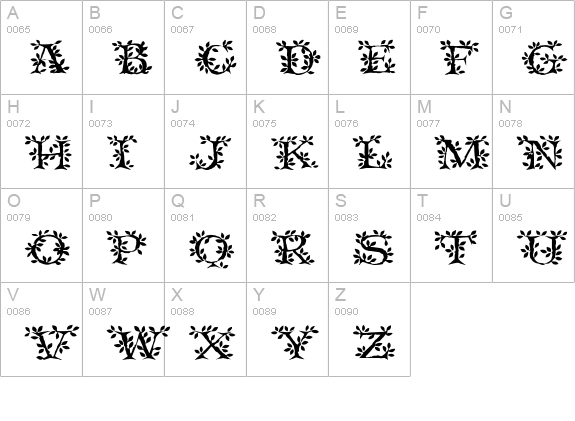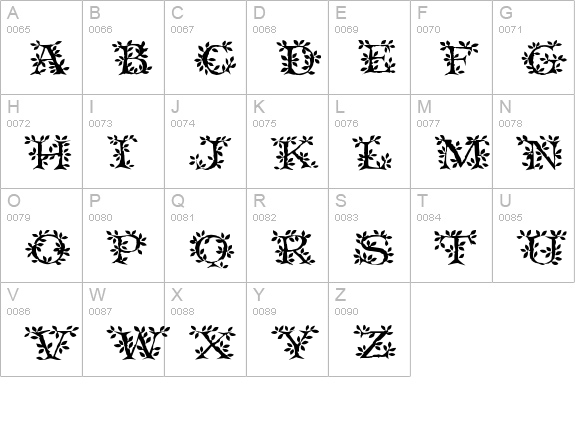
TenderleafCaps Font Details
TenderleafCaps is a stunning and elegant font that exudes sophistication and charm. With its delicate serifs and smooth curves, this typeface is perfect for adding a touch of class to any design project. Whether you are creating invitations, logos, or branding materials, TenderleafCaps will elevate your work to new heights. What makes TenderleafCaps even more appealing is that it is free. Yes, you read that right! This beautiful font is freely available to download at FontsMarket.com. You no longer have to break the bank to access high-quality typography. Simply head over to FontsMarket.com and unleash your creativity with TenderleafCaps. This font boasts a wide range of uppercase characters, allowing you to create eye-catching headlines and titles. Its clean and refined design ensures legibility, making it suitable for both print and digital applications. The versatility of TenderleafCaps is truly remarkable, as it seamlessly blends with various design styles, from vintage to modern. Additionally, the attention to detail in TenderleafCaps is impeccable. The smooth contours and well-balanced proportions make it a joy to work with. Each character is meticulously crafted, ensuring a harmonious and visually pleasing composition. So why wait? Download TenderleafCaps today and embark on a creative journey that is both effortless and captivating. With its free availability at FontsMarket.com, you have the opportunity to enhance your designs with a font that oozes elegance and style. Don't miss out on this extraordinary font – get TenderleafCaps now and let your creativity flourish.